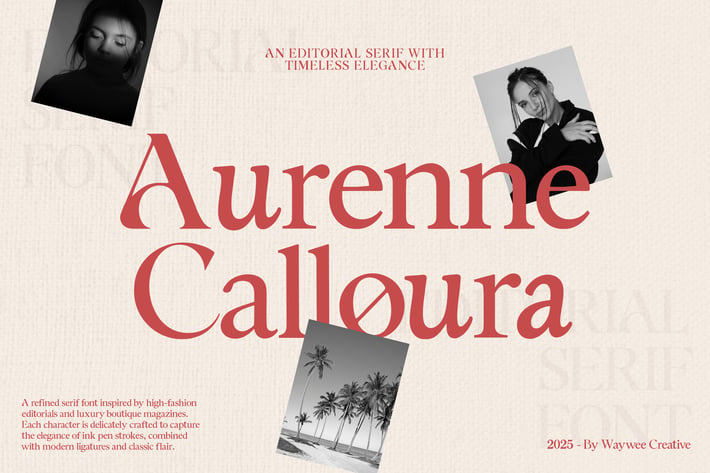
Aurenne Calloura – Editorial Luxury Serif Font
✨ Aurenne Calloura – Editorial Luxury Serif Font
Introducing Aurenne Calloura, a refined serif typeface crafted for elegance and timeless design. Inspired by high-fashion editorial layouts and the delicate rhythm of ink pen strokes, this font blends the softness of hand-drawn curves with the sophistication of luxury branding.
Aurenne Calloura is perfect for:
- Magazine headlines
- Wedding invitations
- Fashion lookbooks
- Perfume & beauty packaging
- Elegant logo design
- Artistic social media visuals
This font features beautiful ligatures (ff, st, tt, ae, oe, sp, ri, ar), smooth alternates, and a graceful contrast between thick and thin strokes – making it ideal for large, high-impact designs where personality and polish matter most.
- Full uppercase & lowercase
- Ligatures & stylistic alternates
- Multilingual support
Make your next project stand out with the editorial charm of Aurenne Calloura – where every serif tells a story.